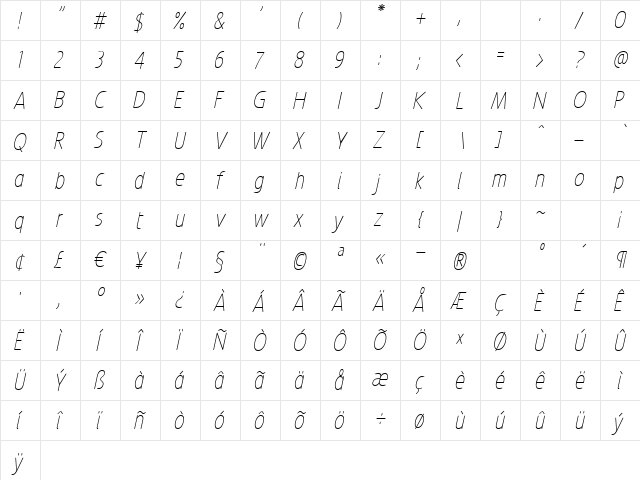
Revalo ModernThin Italic Regular Font Preview
Design Context for Revalo ModernThin Italic Typeface
Revalo ModernThin Italic takes a measured approach to typography — its balanced proportions and neutral character make it a reliable workhorse for both digital and print work. Its italic angle brings a sense of urgency and motion to the letterforms. Its slender proportions lend an understated elegance to any composition.